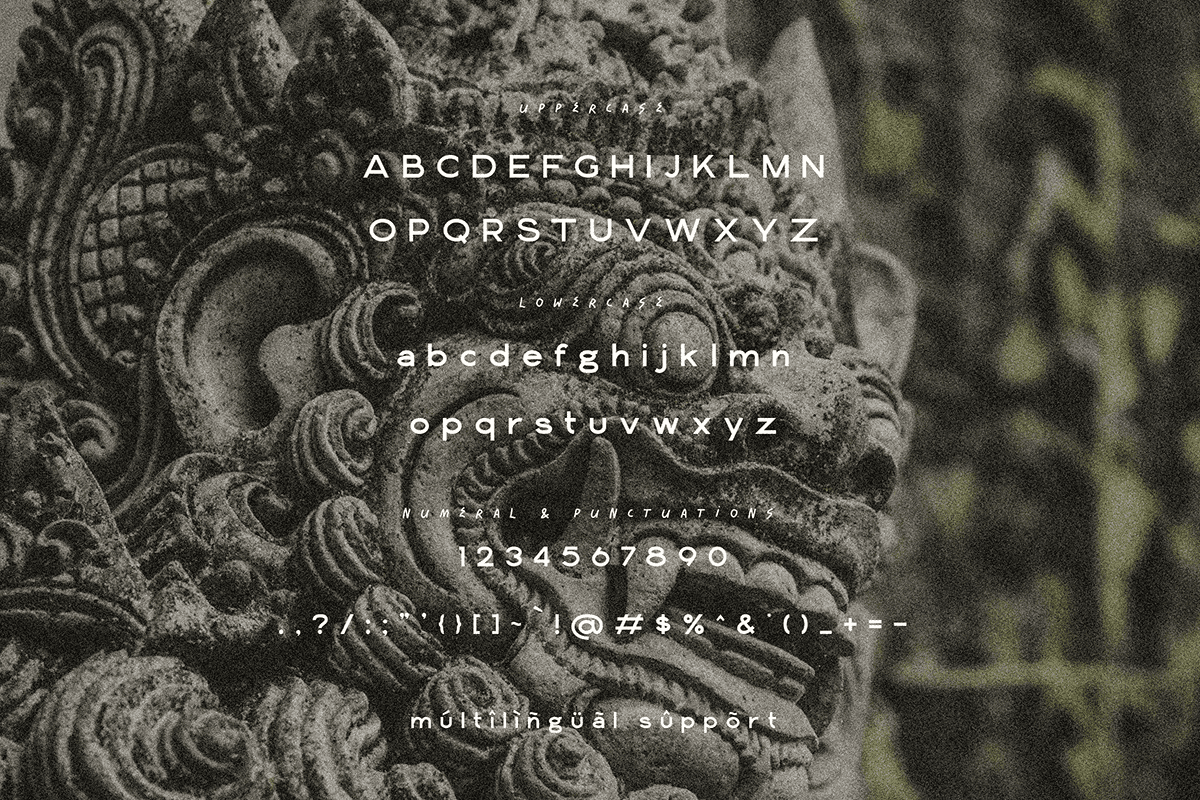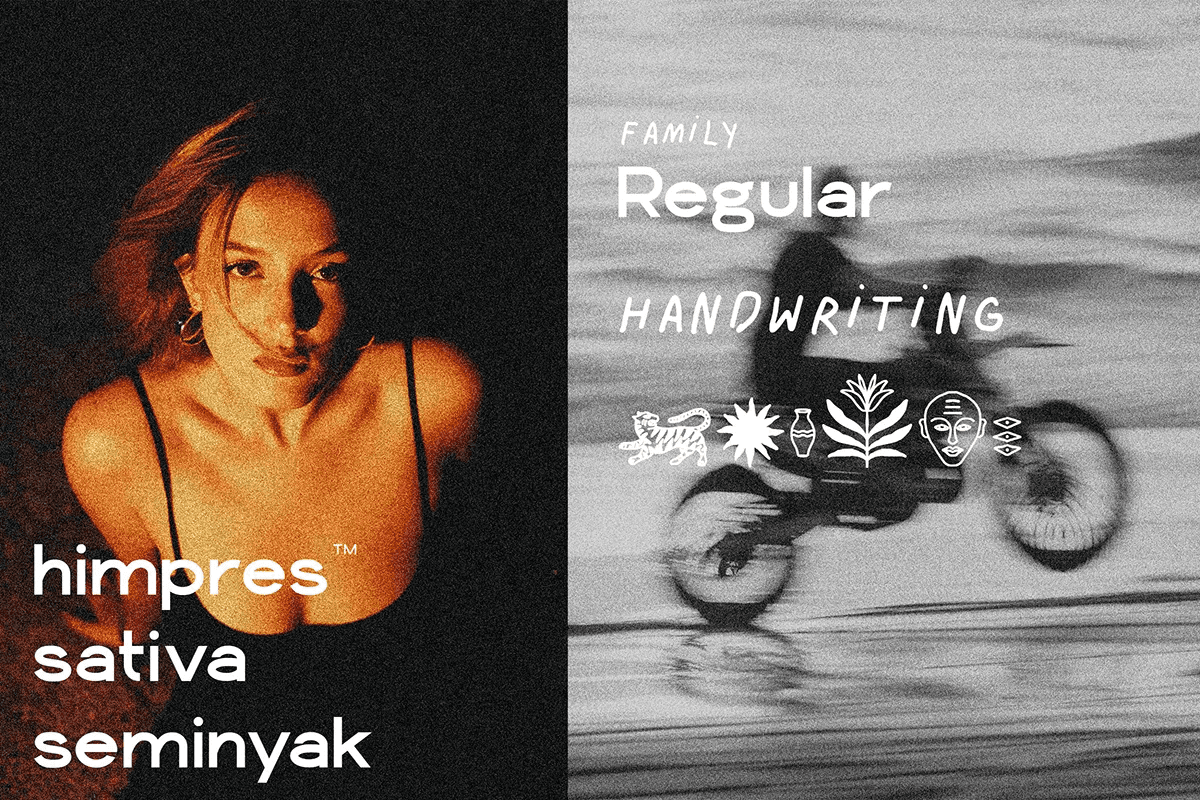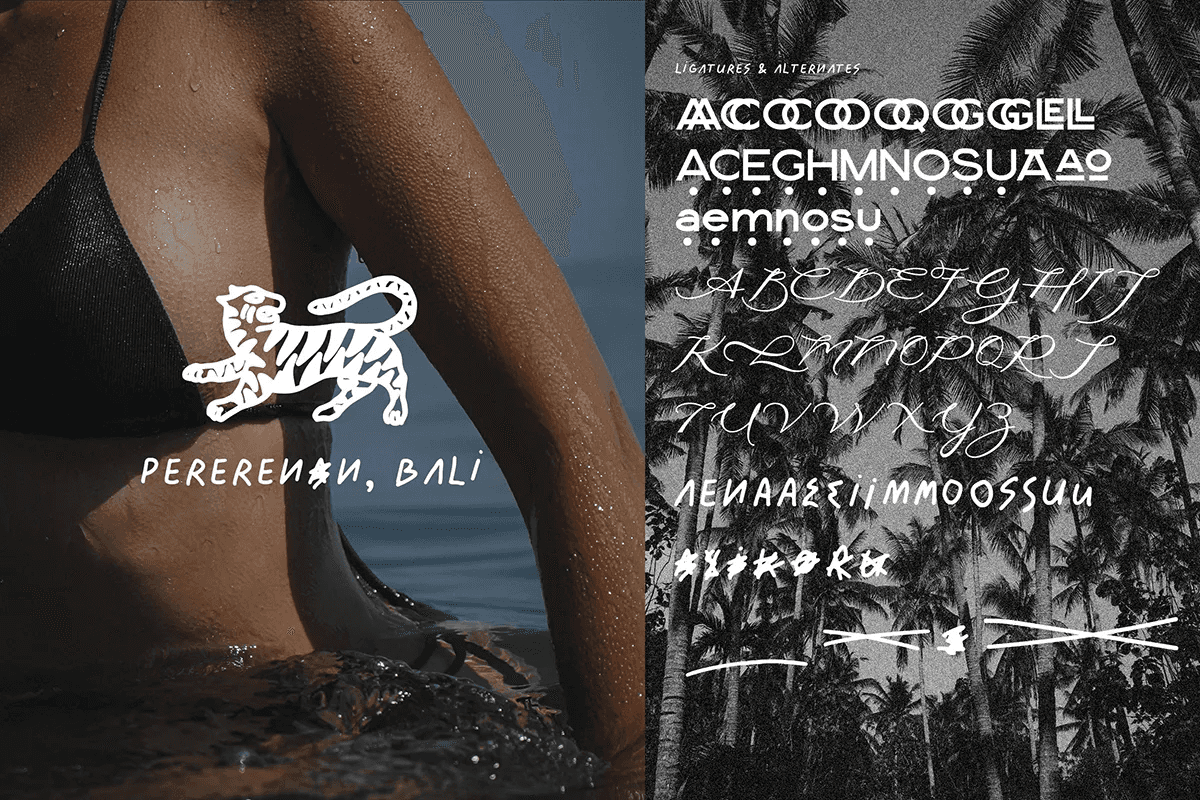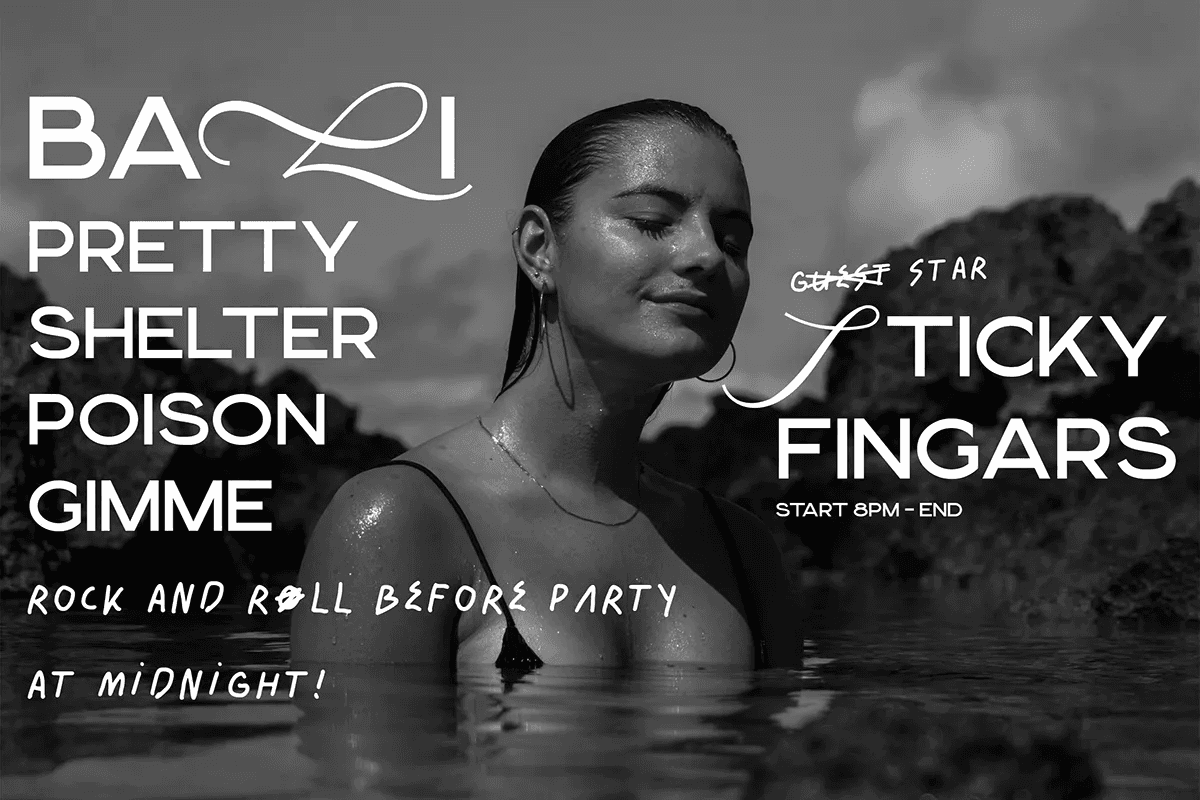
Introducing LE AMALFI – Font Duo, a set of fresh duo font with a perfect blend of sans-serif and script. It’s simple and stylish, bringing a touch of elegance to your designs. Whether you’re working on branding, logos, prints, or signs, Le Amalfi fits right in. Plus, it includes a cool hand-written font and 26 unique icons to give your projects that extra flair. Ideal for anyone looking to add a chill, modern vibe to their work!